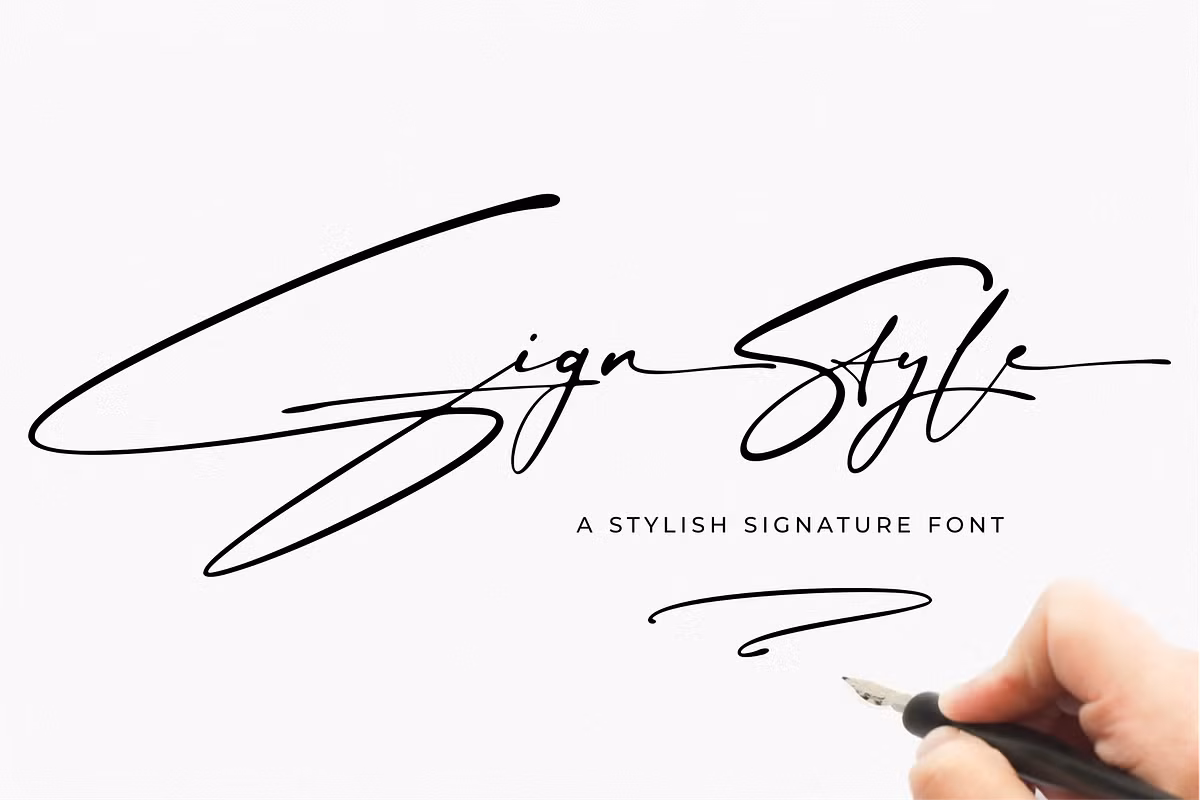
Sign Style – Elegant Signature Font Free Download
Sign Style – Elegant Signature Font Free Download is a sophisticated and graceful script font designed to mimic the fluidity and elegance of a signature. Featuring smooth curves, delicate flourishes, and a refined handwritten style, this font is perfect for wedding invitations, luxury branding, logos, greeting cards, and any design that requires a personal, elegant touch.
The natural flow and upscale design of Sign Style make it perfect for high-end projects, providing both beauty and readability. Whether you're designing a chic brand identity or a stylish invitation, this font adds a classy, signature-quality feel to your typography.